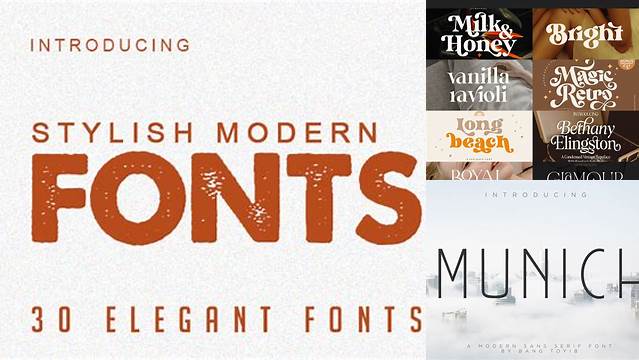
Modern Font Free Download: Stylish Typography Guide
Hey guys! Are you looking to spice up your design projects with modern fonts? You've come to the right place! In today's digital world, typography plays a crucial role in how we communicate and perceive information. A well-chosen font can elevate your design, making it more engaging and professional. But let's face it, quality fonts can be expensive. That's why we're diving deep into the world of modern fonts free download, exploring where to find them, how to use them, and everything in between. Think of your font choice as the voice of your design – it needs to be clear, consistent, and reflective of your message. Choosing the right modern font can be a game-changer, whether you're designing a logo, a website, or even just a simple poster. So, grab your virtual coffee, and let's get started on this typography adventure!
1. What is a Modern Font?
So, what exactly is a modern font? Well, it's more than just a typeface that's been released recently. The term "modern" in typography refers to a specific style that emerged in the late 18th century. These fonts are characterized by their high contrast between thick and thin strokes, their sharp, unbracketed serifs (those little feet at the ends of the strokes), and their overall clean, geometric appearance. Think of fonts like Didot and Bodoni – they're the classic examples of the modern style. But the term has evolved over time, and today, modern fonts encompass a broader range of styles. They generally lean towards minimalism, readability, and a contemporary feel. They often feature clean lines, geometric shapes, and a sense of sophistication. Modern fonts can range from sleek sans-serifs to elegant serifs with a twist, and they're perfect for giving your designs a fresh, up-to-date look. Remember, the key to identifying a modern font is its emphasis on clarity, simplicity, and a contemporary aesthetic.
5. Modern Sans-Serif Fonts for Free
Let's talk specifics! Modern sans-serif fonts are incredibly versatile and popular for a reason. Their clean lines and lack of serifs (those little feet) make them highly readable on screens, making them ideal for websites, apps, and digital publications. But they're also fantastic for print projects, lending a contemporary feel to brochures, posters, and more. When you're looking for modern sans-serif fonts for free, you'll find a vast selection on platforms like Google Fonts and Font Squirrel. Some standout options include Montserrat, Open Sans, Lato, and Roboto. These fonts are widely used and loved for their clarity and versatility. They work well in a variety of contexts, from body text to headlines. But don't be afraid to explore beyond the usual suspects! There are tons of other free sans-serif fonts out there with unique personalities. Look for fonts with varying weights and styles (like italics and bold) to give you more flexibility in your designs. Finding the perfect modern sans-serif font can really elevate your project, so take your time and experiment with different options.
6. Modern Serif Fonts for Free
While modern sans-serif fonts are all the rage, don't underestimate the power of a beautiful modern serif font! Serifs, those little decorative strokes at the ends of letters, can add a touch of elegance and sophistication to your designs. Modern serif fonts often have a sharper, more refined look than their classic counterparts, making them perfect for projects that need a touch of class without feeling old-fashioned. If you're searching for modern serif fonts for free, Google Fonts is again a fantastic resource. Playfair Display is a popular choice for headlines, with its high contrast and elegant curves. Merriweather is a highly readable serif that works well for body text. Lora is another lovely option, with a slightly more calligraphic feel. When using serif fonts, consider the context of your design. They often work well for titles, headings, and body text in print materials, as well as for websites and blogs that want a touch of formality. Experiment with different serif fonts to find the perfect match for your project's personality.
7. Display Fonts: Free Modern Options
Time to get a little more expressive! Display fonts are designed to be eye-catching and attention-grabbing, making them perfect for headlines, logos, posters, and other projects where you want to make a statement. Free modern display fonts come in a huge variety of styles, from bold and geometric to playful and whimsical. When you're browsing for display fonts, think about the overall tone and message of your design. A bold, sans-serif display font might be perfect for a tech startup, while a script-style display font might be better suited for a wedding invitation. Websites like DaFont and Font Squirrel are treasure troves of free display fonts, but be sure to pay close attention to the licensing. Some fonts are free for personal use only, while others can be used commercially. Remember, the key to using display fonts effectively is to use them sparingly. A little goes a long way, and you don't want to overwhelm your audience. Pair your display font with a simpler, more readable font for body text to create a balanced and harmonious design.
8. Free Fonts for Logo Design
Your logo is the face of your brand, so choosing the right font is absolutely crucial! A modern font can give your logo a contemporary and professional look, helping you stand out from the competition. When selecting free fonts for logo design, think about your brand's personality and target audience. Is your brand sleek and minimalist, or more playful and creative? A strong, sans-serif font like Montserrat or Bebas Neue can convey a sense of confidence and modernity, while a more elegant serif font like Playfair Display can add a touch of sophistication. Consider the legibility of the font at different sizes. Your logo will likely be used in a variety of contexts, from business cards to websites, so it needs to be readable both large and small. Experiment with different font pairings to create a unique and memorable logo. Try combining a bold display font with a simpler sans-serif for a balanced look. Finding the perfect free font for your logo takes time and experimentation, but it's well worth the effort.
9. Website Font Selection: Free Modern Choices
Your website's typography plays a huge role in user experience. Choosing the right modern font can make your website more readable, engaging, and visually appealing. When selecting free modern choices for website font selection, prioritize readability above all else. A beautiful font is useless if visitors can't easily read your content. Sans-serif fonts are generally a safe bet for body text, as they tend to render well on screens. Open Sans, Lato, and Roboto are popular choices for their clarity and versatility. For headings and titles, you have a bit more leeway to experiment with different modern font styles. A slightly bolder or more decorative font can help create visual hierarchy and draw the reader's eye. Consider the overall tone and style of your website. A tech website might benefit from a sleek, geometric sans-serif, while a lifestyle blog might opt for a warmer, more approachable serif font. Remember to check your font pairings to ensure they complement each other. Selecting the right modern fonts for your website is an investment in your brand's online presence.
10. Font Pairing Tips for Modern Designs
Okay, you've got a great modern font… now what? Pairing fonts effectively is an art, but it's a crucial skill for creating visually harmonious designs. The goal is to choose fonts that complement each other without clashing. A common strategy is to pair a sans-serif font with a serif font. For example, you might use a clean sans-serif like Open Sans for body text and a more elegant serif like Playfair Display for headings. This creates a nice contrast while maintaining readability. Another approach is to use different weights and styles within the same font family. For instance, you could use a bold weight for headings and a regular weight for body text. This creates a cohesive look without being too monotonous. Avoid pairing fonts that are too similar, as this can look unintentional and messy. Also, be careful not to use too many fonts in one design. Stick to two or three fonts at most to maintain a clean and professional look. Font pairing is all about balance, so experiment with different combinations until you find what works best for your design.
11. Free Font Alternatives to Popular Paid Fonts
Dreaming of a fancy, premium font but don't want to break the bank? You're in luck! There are often fantastic free font alternatives to popular paid fonts. This is a great way to achieve a similar look and feel without spending any money. For example, if you love the sleek, modern look of Helvetica, try Inter or Roboto as free alternatives. They share a similar geometric structure and clean lines. If you're drawn to the elegant serifs of Garamond, consider using EB Garamond or Libre Baskerville as free substitutes. They capture the classic elegance of Garamond at no cost. Websites like FontPair and Typ.io can help you discover font pairings and identify free alternatives to popular fonts. These resources often provide suggestions based on visual similarity and design principles. Remember, the goal isn't to perfectly replicate a paid font, but to find a free alternative that captures the same essence and complements your design. With a little research, you can achieve a high-end look without the high-end price tag.
12. Using Free Fonts for Commercial Projects
This is a question we get a lot: Can you really use free fonts for commercial projects? The answer is yes, but with a crucial caveat: you must check the font license! As we discussed earlier, font licenses dictate how you're allowed to use a font. Some free fonts are released under the Open Font License (OFL), which allows for both personal and commercial use, including modification and redistribution. Others may have more restrictive licenses, limiting usage to personal projects or requiring attribution. Before using any free font in a commercial project, such as a logo, website, or marketing materials, carefully review the license agreement. Look for terms like "commercial use," "embedding," and "modification." If you're unsure about anything, contact the font designer or foundry for clarification. Don't assume that a font is free for all uses just because you downloaded it from a free font website. Respecting font licenses is essential for ethical and legal design practice.
13. Free Fonts for Print Design
Print design has its own set of considerations when it comes to font selection. While some fonts look great on screen, they may not translate well to print. When choosing free fonts for print design, focus on readability and clarity. Serif fonts like Merriweather and Lora often work well for body text in print, as their serifs can help guide the reader's eye across the page. For headlines and titles, you can experiment with bolder fonts, both serif and sans-serif. Consider the printing method and paper stock you'll be using. A heavy, textured paper might require a bolder font to ensure readability, while a smoother paper might allow for more delicate typefaces. Always create a test print before committing to a final design. This will help you see how the fonts look in print and identify any potential issues with spacing, legibility, or ink coverage. Selecting the right free fonts for print design is crucial for creating professional and impactful printed materials.
14. Optimizing Free Fonts for Web Use
Using free fonts on your website is a great way to improve your site's visual appeal without spending money, but it's important to optimize them for web use. Large font files can slow down your website's loading time, which can negatively impact user experience and SEO. To optimize free fonts for web use, consider using web font formats like WOFF and WOFF2. These formats are compressed and designed specifically for the web, resulting in smaller file sizes. Use a font loading strategy that prioritizes the display of text. This ensures that your text is visible even if the fonts haven't fully loaded yet. Consider using font subsets, which include only the characters you actually need. This can significantly reduce the font file size. Tools like Google Fonts automatically handle font optimization, but if you're self-hosting your fonts, you'll need to take these steps manually. Optimizing free fonts for the web ensures a fast and seamless user experience on your website.
15. How to Install Free Fonts on Your Computer
Okay, you've found the perfect modern font free download… now how do you actually use it? Installing fonts on your computer is a pretty straightforward process, but it varies slightly depending on your operating system. On Windows, you typically download the font file (usually in .ttf or .otf format), right-click on the file, and select "Install." Alternatively, you can copy the font file to the Fonts folder in your Windows directory (usually located at C:\Windows\Fonts). On macOS, you can simply double-click the font file, and Font Book will open, allowing you to install the font. You can also drag the font file to the Font Book application icon. After installing a new font, you may need to restart your applications for the font to appear in their font menus. If you're still having trouble, check your operating system's documentation for specific instructions. Installing free fonts is the first step in unleashing their creative potential in your design projects.
16. Modern Script Fonts: Free Options
Want to add a touch of elegance and personality to your designs? Modern script fonts are a fantastic choice! These fonts mimic the look of handwriting, adding a personal and stylish touch. However, it's important to use them sparingly and strategically. Free modern script fonts are best suited for headings, titles, and logos, where they can make a statement without overwhelming the reader. They're generally not ideal for body text, as their cursive nature can make them difficult to read in large blocks. When choosing a free script font, consider the overall tone and style of your project. Some script fonts are formal and elegant, while others are more playful and casual. Websites like DaFont and Font Squirrel offer a wide variety of free script fonts, but be sure to check the license before using them in commercial projects. Using modern script fonts effectively requires careful consideration of readability and context.
17. Geometric Fonts: Free Modern Choices
Geometric fonts are characterized by their clean lines, simple shapes, and overall minimalist aesthetic. They're a popular choice for modern designs, conveying a sense of clarity, efficiency, and sophistication. Free modern choices in geometric fonts are readily available on platforms like Google Fonts, offering a range of options for various design needs. These fonts often feature perfect circles, squares, and triangles as their building blocks, creating a sense of visual harmony and precision. Geometric sans-serif fonts are particularly well-suited for logos, headlines, and websites, where their clean lines ensure readability and a contemporary look. When selecting a geometric font, consider the weight and style variations available. A font family with multiple weights and styles (like italics and bold) will give you more flexibility in your designs. Choosing the right geometric font can give your project a modern and professional edge.
18. Vintage-Inspired Modern Fonts (Free)
Looking to add a touch of nostalgia to your modern designs? Vintage-inspired modern fonts are the perfect way to blend classic aesthetics with contemporary sensibilities. These fonts often draw inspiration from vintage signage, posters, and advertisements, incorporating elements like serifs, script styles, and decorative details. But they also have a modern twist, making them suitable for a variety of projects. Finding free vintage-inspired modern fonts can be a fun adventure. Websites like Font Squirrel and Creative Market often feature fonts in this style, but be sure to check the licensing before using them commercially. When using vintage-inspired fonts, consider the overall mood and message of your design. These fonts can add a sense of warmth, history, and character, but it's important to use them in a way that feels authentic and appropriate. Experiment with free vintage-inspired fonts to create unique and memorable designs.
19. Free Fonts for Graphic Design Projects
Graphic design projects demand versatility and creativity when it comes to font selection. Whether you're designing a poster, a brochure, or a social media graphic, the right font can make all the difference. Thankfully, there are tons of free fonts available that are perfect for graphic design projects. When choosing free fonts for graphic design, consider the overall aesthetic you're aiming for. A clean sans-serif font might be ideal for a modern, minimalist design, while a more decorative font could be a better fit for a project with a vintage or whimsical feel. Don't be afraid to experiment with font pairings to create visual interest and hierarchy. Combining a bold headline font with a simpler body text font can add depth and dimension to your design. Remember to always check the font license before using a free font in a commercial project. Leveraging free fonts in graphic design allows you to create stunning visuals without breaking the bank.
20. Minimalist Fonts: Free Modern Options
Less is often more, especially in design. Minimalist fonts embrace simplicity and clarity, making them a popular choice for modern projects that prioritize clean aesthetics. These fonts typically feature clean lines, geometric shapes, and a lack of decorative embellishments. Finding free modern options for minimalist fonts is easier than you might think. Google Fonts is a treasure trove of minimalist typefaces, offering a wide range of sans-serif and serif fonts that embody this aesthetic. Montserrat, Open Sans, and Lato are just a few examples of free fonts that fit the minimalist bill. When using minimalist fonts, focus on readability and clarity. Choose a font that's easy to read at various sizes, and pay attention to letter spacing and line height. Pair your minimalist font with plenty of white space to create a clean and uncluttered design. Embracing minimalist fonts can give your projects a sophisticated and contemporary feel.
21. Bold Fonts: Free Modern Choices
Need to make a statement? Bold fonts are your best friend! These fonts command attention and convey a sense of confidence and strength. They're perfect for headlines, titles, logos, and any other design element that needs to stand out. Free modern choices in bold fonts are plentiful, offering a range of styles to suit various projects. Bold sans-serif fonts are particularly popular for their clean and impactful appearance. Bebas Neue, Montserrat Bold, and Open Sans Extra Bold are all excellent free options. When using bold fonts, consider the overall visual hierarchy of your design. Use them strategically to highlight key information and create a clear focal point. Be careful not to overuse bold fonts, as too much boldness can overwhelm the viewer. Choosing the right bold font can add a powerful visual punch to your designs.
22. Calligraphy Fonts: Free Modern Options
If you're looking to add a touch of elegance and personality to your designs, calligraphy fonts are a fantastic choice. These fonts mimic the fluid strokes of hand-lettering, adding a unique and artistic flair. While traditionally associated with formal occasions, modern calligraphy fonts have evolved to suit a variety of styles and projects. Finding free modern options requires a bit of searching, but there are some real gems out there. Websites like DaFont and Font Squirrel offer a selection of free calligraphy fonts, but be sure to check the license before using them commercially. When using calligraphy fonts, consider their readability. They're best suited for headlines, titles, and logos, where their decorative nature can shine without sacrificing legibility. Pair your calligraphy font with a simpler sans-serif font for body text to create a balanced and harmonious design. Exploring free modern calligraphy fonts can unlock a world of creative possibilities.
23. Retro Fonts: Free Modern Choices
Nostalgia is a powerful design tool, and retro fonts are a great way to tap into that sentiment. These fonts evoke the styles of past decades, from the bold serifs of the 1950s to the groovy scripts of the 1970s. Free modern choices in retro fonts can add a touch of vintage charm to your projects without feeling dated. Finding free retro fonts requires a bit of digging, but websites like Font Squirrel and Creative Market often feature fonts in this style. When using retro fonts, consider the overall tone and message of your design. These fonts can add character and personality, but it's important to use them in a way that feels authentic and appropriate. Pair your retro font with complementary colors and graphics to create a cohesive vintage-inspired design. Discovering free modern retro fonts can help you transport your audience to another era.
24. Handwritten Fonts: Free Modern Options
Want to add a personal touch to your designs? Handwritten fonts are a fantastic way to achieve that. These fonts mimic the look of actual handwriting, adding a sense of authenticity and warmth. Free modern options in handwritten fonts are readily available, offering a range of styles from casual and playful to elegant and refined. Websites like DaFont and Font Squirrel are great resources for finding free handwritten fonts, but be sure to check the license before using them in commercial projects. When using handwritten fonts, consider their readability. They're best suited for short blocks of text, like quotes, invitations, and headings. Avoid using them for lengthy paragraphs, as they can be difficult to read. Pair your handwritten font with a simpler sans-serif font for a balanced and legible design. Incorporating free modern handwritten fonts can make your designs feel more personal and approachable.
25. Best Font Combinations for Modern Designs (Free)
Font pairing is an art, and choosing the best font combinations for modern designs can elevate your projects to the next level. A well-chosen font pairing creates visual harmony and enhances readability, while a poor pairing can be jarring and distracting. Thankfully, there are some tried-and-true font combinations that work beautifully in modern designs, and many of them are available for free. A classic combination is pairing a sans-serif font with a serif font. For example, using Open Sans for body text and Playfair Display for headings creates a sophisticated and readable look. Another popular option is to pair two different weights of the same font family, such as Montserrat Bold for headlines and Montserrat Regular for body text. Websites like FontPair and Typ.io can help you discover font combinations and provide inspiration for your own projects. Mastering the art of font combination is essential for creating visually appealing and effective modern designs.
26. Free Fonts for Social Media Graphics
Your social media graphics are often the first impression your audience has of your brand, so choosing the right fonts is crucial. Free fonts for social media graphics can help you create eye-catching visuals that grab attention and convey your message effectively. When selecting fonts for social media, prioritize readability and visual impact. A bold, attention-grabbing font can be perfect for headlines and captions, while a simpler font can ensure that your body text is easy to read. Consider the platform you're designing for. Instagram graphics often benefit from bolder, more visually striking fonts, while LinkedIn graphics might require a more professional and understated look. Experiment with font pairings to create visual interest and hierarchy. Combine a display font with a simpler sans-serif font, or use different weights and styles within the same font family. Utilizing free fonts effectively in social media graphics can boost your brand's online presence.
27. Free Fonts for Presentations
Your presentation's typography plays a crucial role in keeping your audience engaged and understanding your message. Free fonts for presentations can help you create visually appealing slides that are both readable and professional. When choosing fonts for presentations, prioritize readability above all else. A clean sans-serif font like Open Sans or Lato is a safe bet for body text, as it's easy to read on screens and in large formats. For headings and titles, you can experiment with bolder fonts to create visual hierarchy. Consider the overall tone and style of your presentation. A formal presentation might benefit from a more traditional font, while a creative presentation could use a more playful typeface. Test your font choices on a projector or screen to ensure they look clear and legible from a distance. Selecting the right free fonts for your presentations can make a significant impact on your audience's understanding and engagement.
28. Free Fonts with Multiple Weights and Styles
Having a font family with multiple weights and styles is a designer's dream! It gives you the flexibility to create visual hierarchy, add emphasis, and maintain consistency throughout your design. Free fonts with multiple weights and styles are incredibly valuable, as they offer a wide range of options within a single typeface. Google Fonts is a fantastic resource for finding free font families with multiple weights, including regular, bold, italic, and more. Montserrat, Open Sans, and Roboto are just a few examples of popular free fonts that offer a wide range of styles. When using a font family with multiple weights, experiment with different combinations to create visual interest. Use bold weights for headlines and titles, and regular or light weights for body text. Italic styles can be used to add emphasis or create a sense of contrast. Leveraging free fonts with multiple weights and styles can significantly enhance your design's flexibility and visual impact.
29. Free Fonts for Beginners: Easy-to-Use Options
Starting out in design can be overwhelming, especially when it comes to font selection. Choosing the right typeface can seem daunting, but there are plenty of free fonts that are perfect for beginners. The key is to focus on readability, versatility, and ease of use. Simple sans-serif fonts like Open Sans, Lato, and Roboto are excellent choices for beginners. They're clean, legible, and work well in a variety of contexts. These fonts also offer multiple weights and styles, giving you more flexibility as you learn. Don't be afraid to experiment with font pairings, but start with simple combinations. Pair a sans-serif font with a serif font, or use different weights of the same font family. Exploring free fonts for beginners should be an enjoyable process of discovery and experimentation.
30. Staying Updated on New Free Font Releases
The world of typography is constantly evolving, with new fonts being released all the time. Staying updated on new free font releases is a great way to keep your designs fresh and modern. But how do you stay in the loop? One of the best ways is to subscribe to newsletters from font foundries and font websites. Many of these platforms regularly announce new free font releases. Follow design blogs and social media accounts that focus on typography. These resources often feature new free fonts and provide insights into current design trends. Check websites like Google Fonts and Font Squirrel regularly, as they're constantly adding new fonts to their libraries. By staying informed about new free font releases, you can expand your typographic toolkit and create cutting-edge designs.